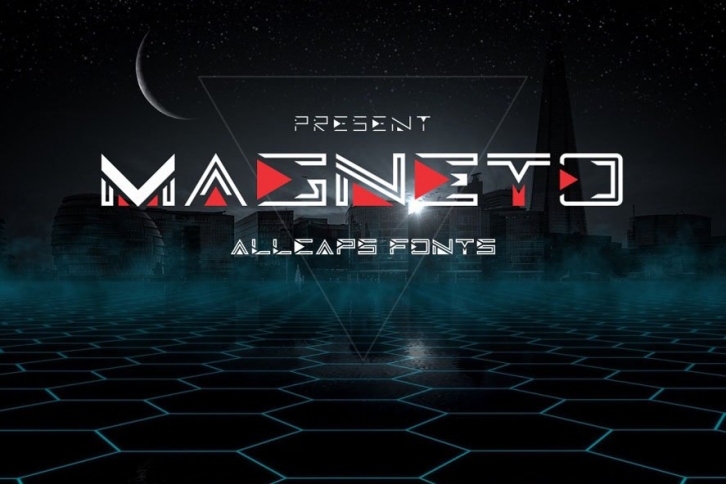
New Present Magneto
Magneto is a modern, stylish and futuristic font, which was created to meet the needs of your next design project.
Magneto can used for various purposes. such as the title, logo, posters, correspondence, display, letterhead, signage, labels, newsletters, badges, t-shirt, etc.
Comes with capital letters, numerals. Contain 5 thicknesses: Regular,Line,Bold Line,Thin and Special Line